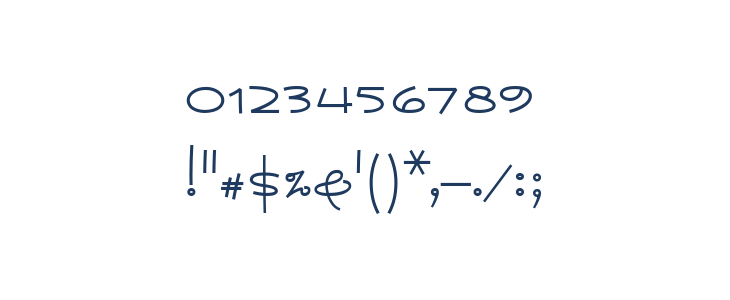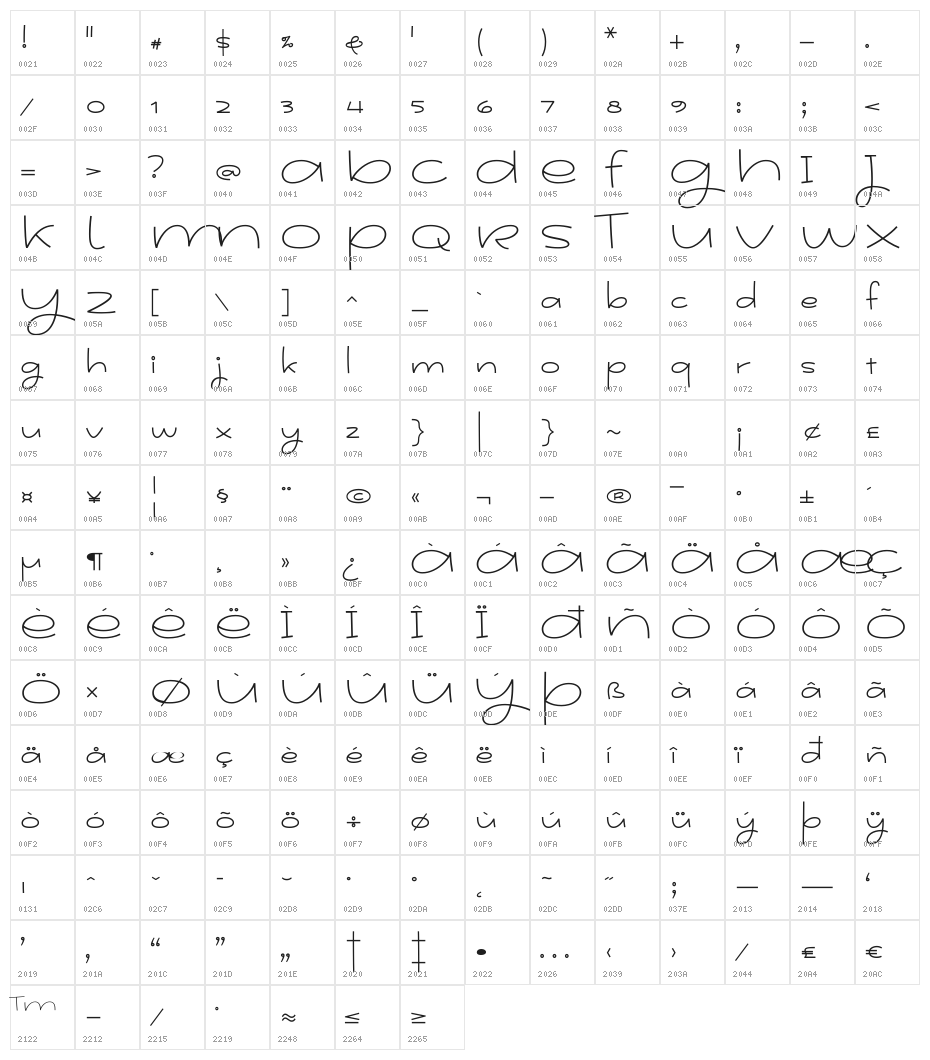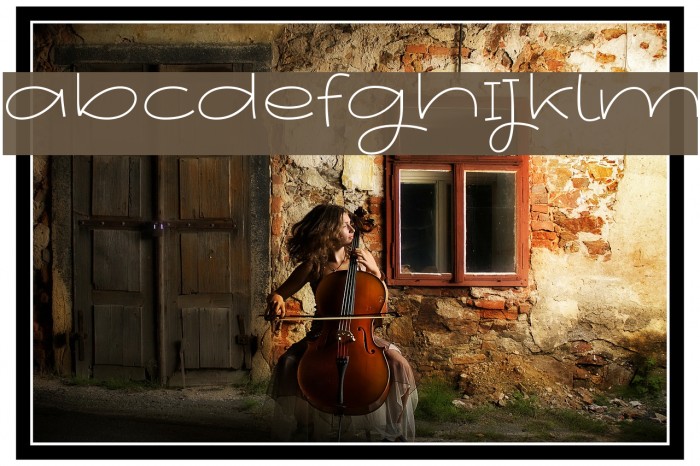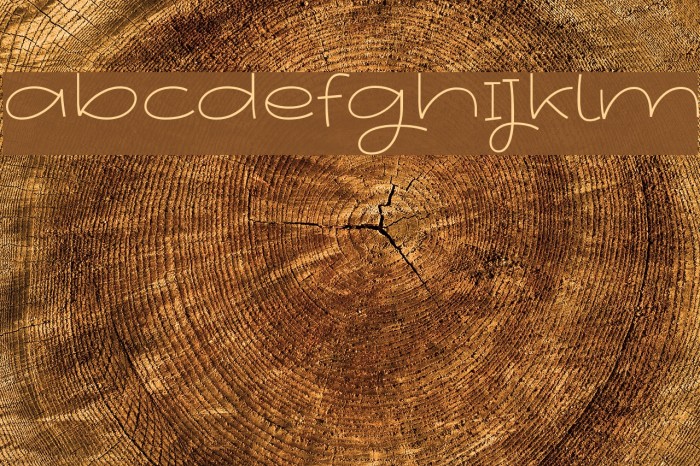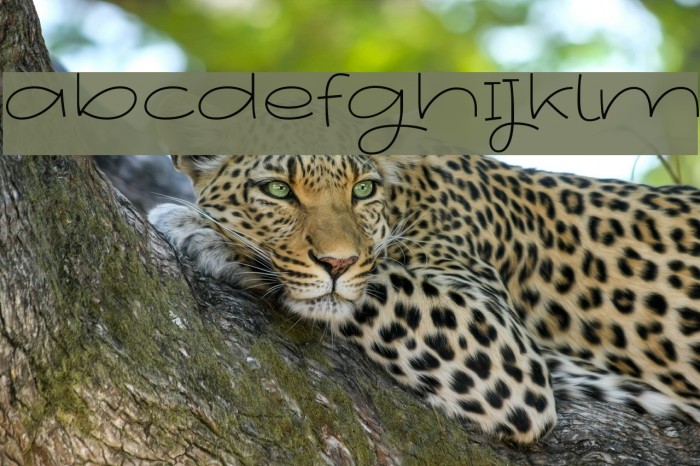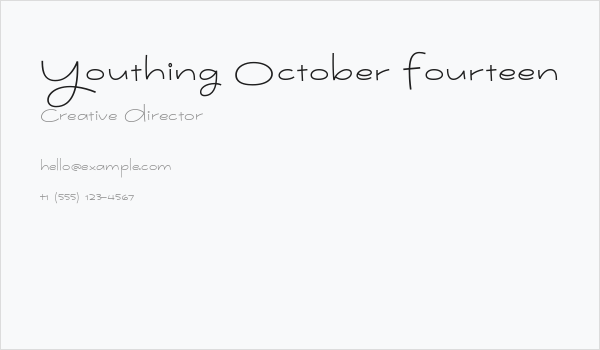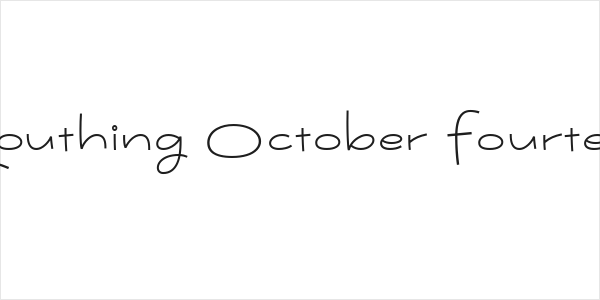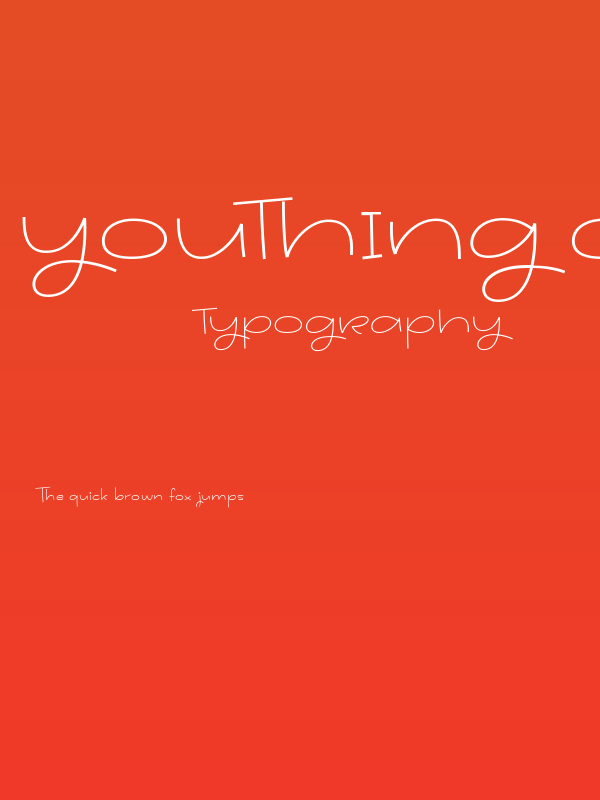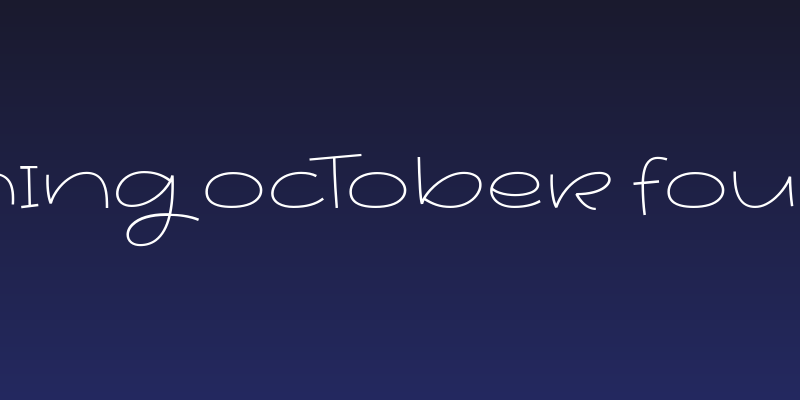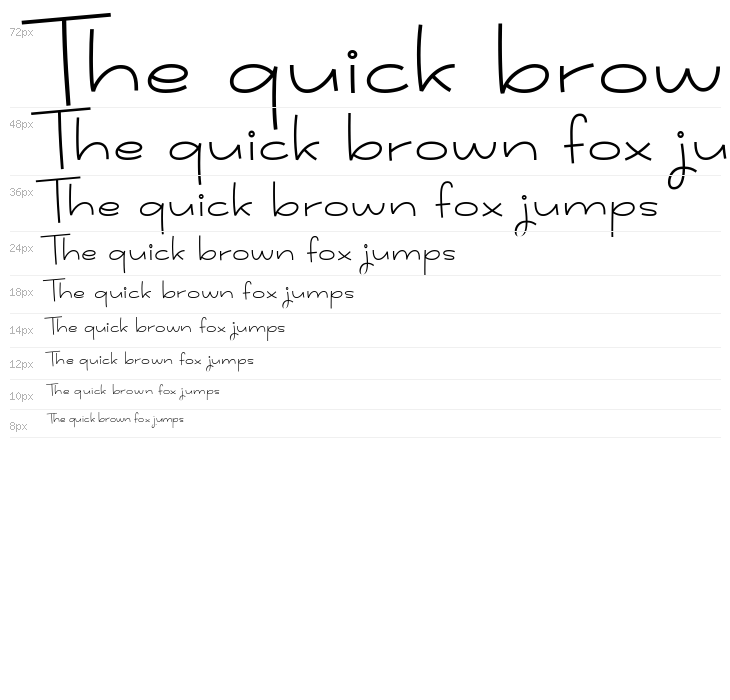
Youthing October Fourteen Font
Youthing October Fourteen Description
This font features a playful and whimsical style with a handwritten appearance. The characters are thin and elongated, with a consistent stroke width that gives it a light and airy feel. The letters have a slight slant, adding to the casual and informal look. The rounded edges and smooth curves enhance its friendly and approachable nature. This font is suitable for projects that require a personal touch, such as invitations, greeting cards, or children's book titles. The numerals and special characters maintain the same playful aesthetic, ensuring a cohesive look across all text elements.
| Proposed Projects | Ideal for invitations, greeting cards, children's books, and casual branding. |